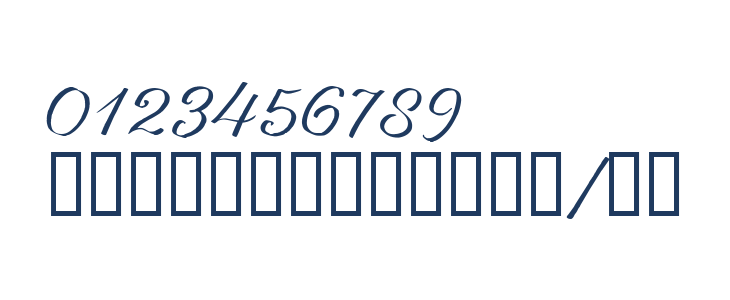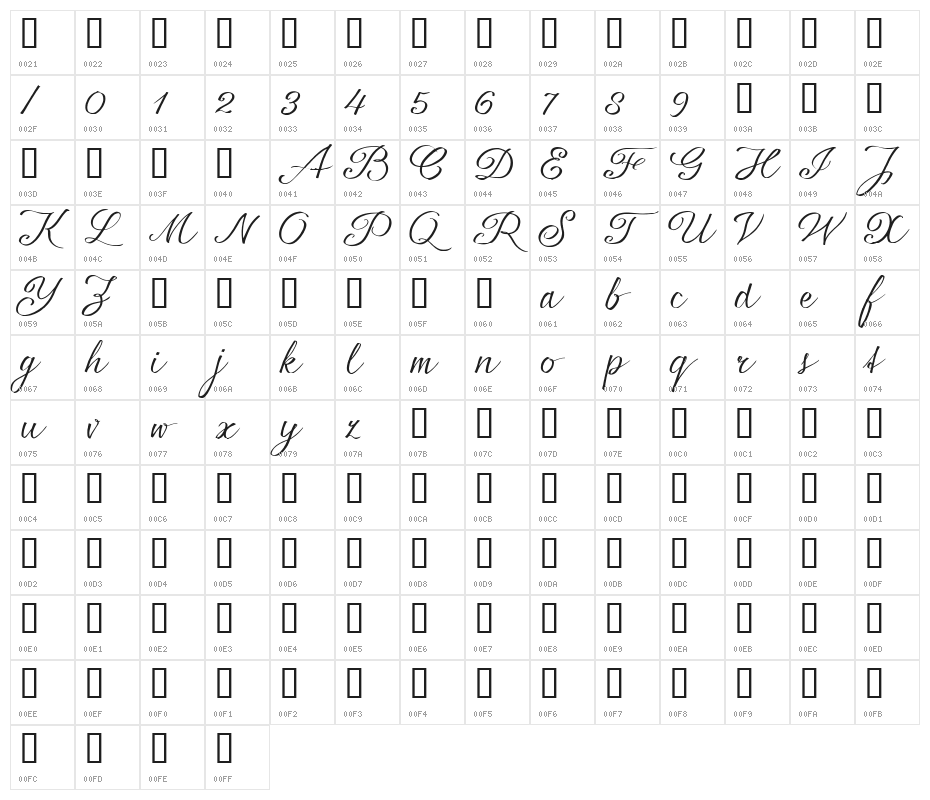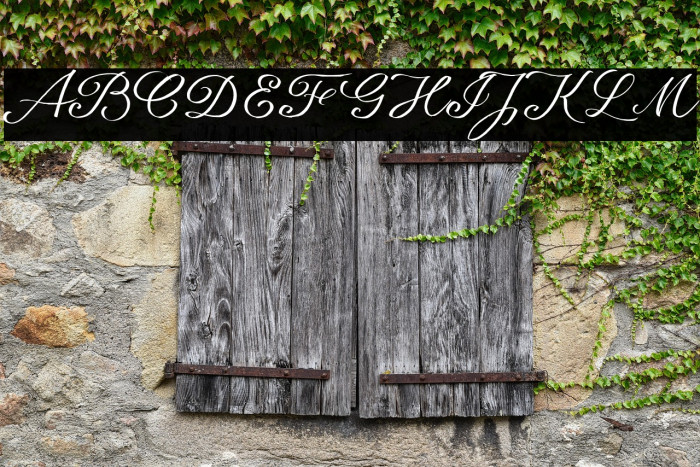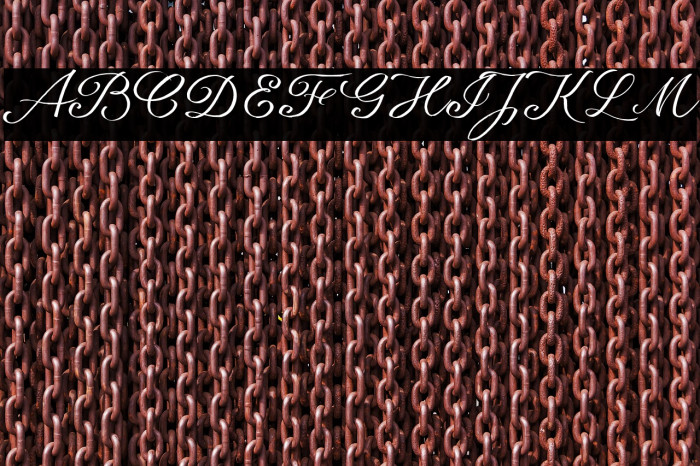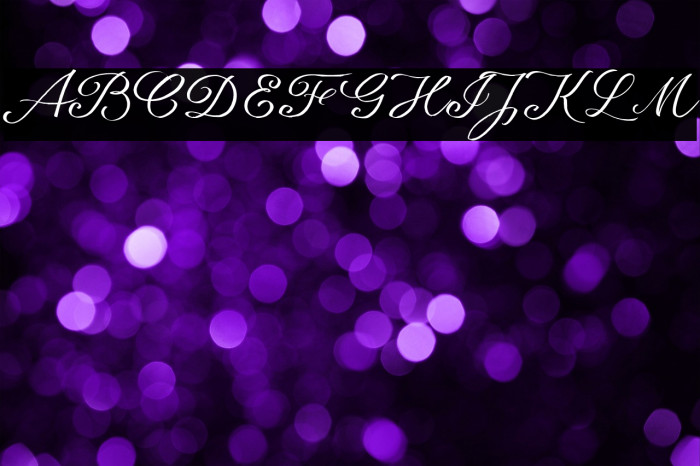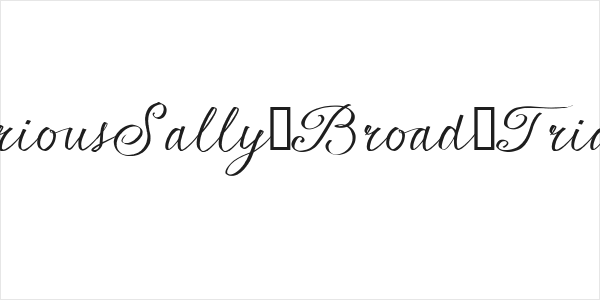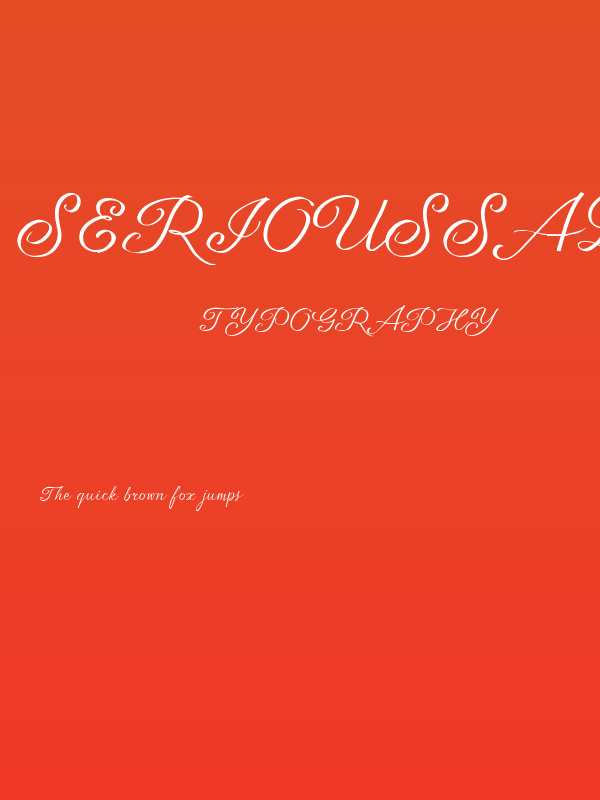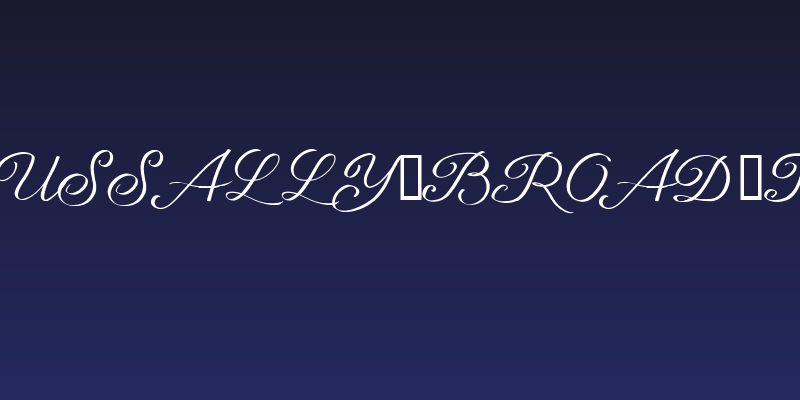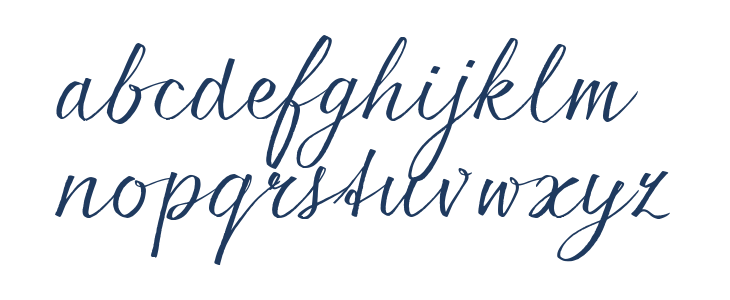
seriousSally_Broad_Trial Font
seriousSally_Broad_Trial Description
This elegant script font features a flowing, cursive style with a sophisticated flair. The uppercase letters are adorned with graceful loops and swashes, giving them a decorative and ornate appearance. The lowercase letters maintain a consistent slant, enhancing the fluidity and continuity of the script. The numerals are designed with a similar cursive style, ensuring harmony across all characters. The special characters are integrated seamlessly, maintaining the overall aesthetic. This font exudes a sense of elegance and refinement, making it ideal for formal invitations, branding, and decorative purposes.
| Proposed Projects | Ideal for wedding invitations, luxury branding, greeting cards, and decorative signage. |